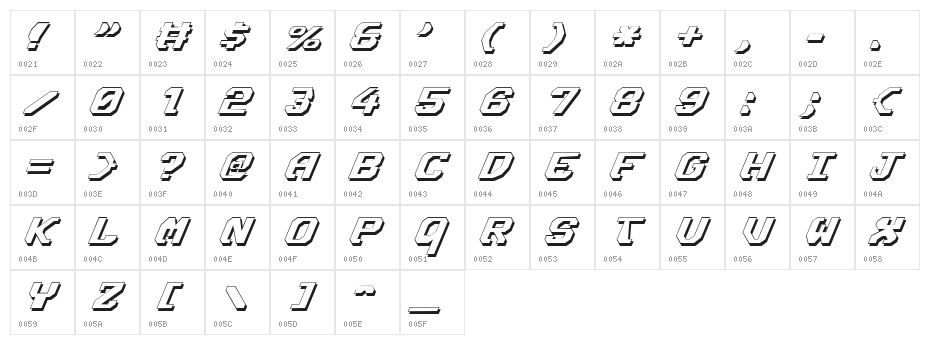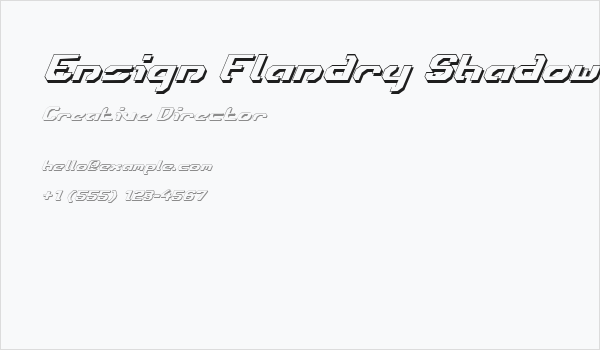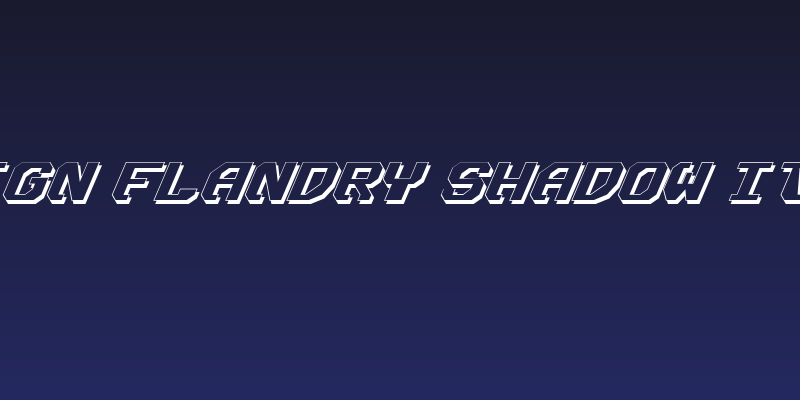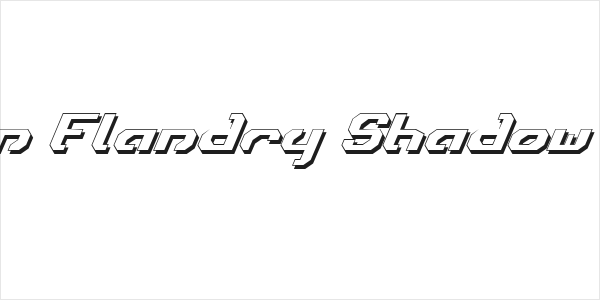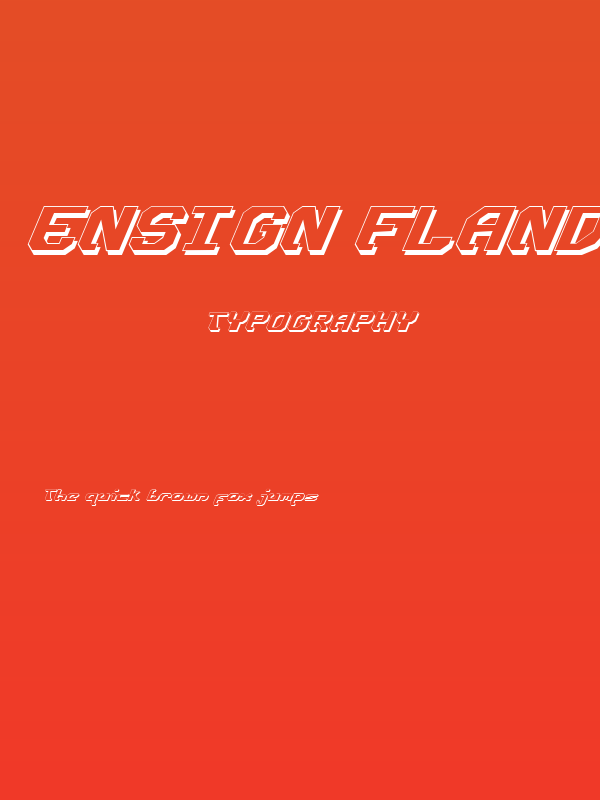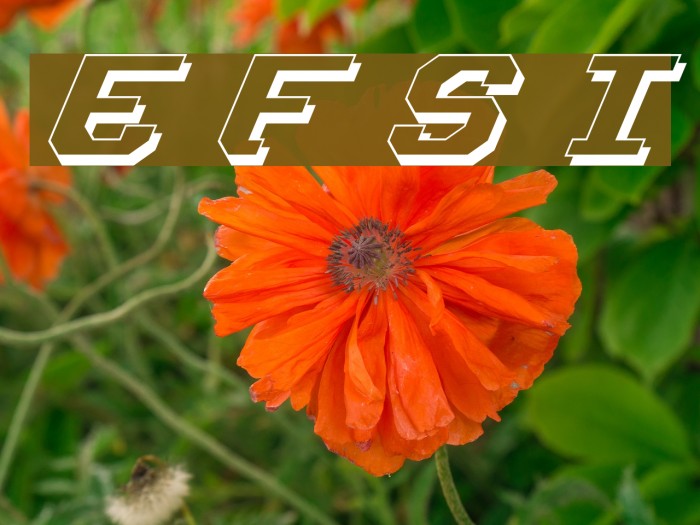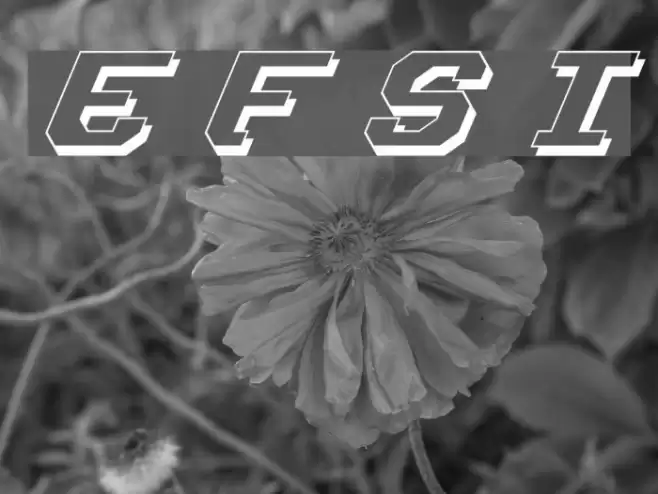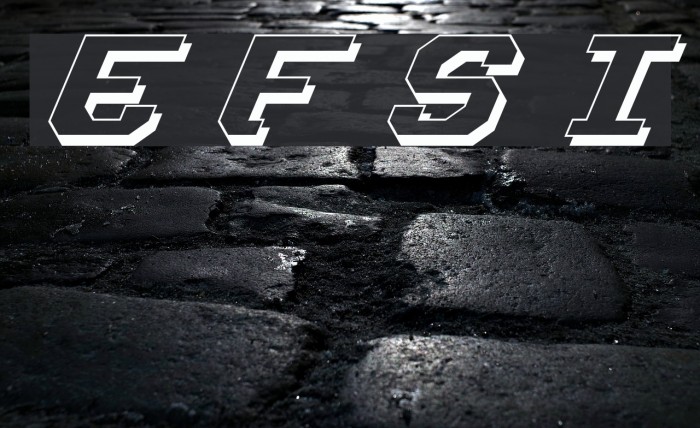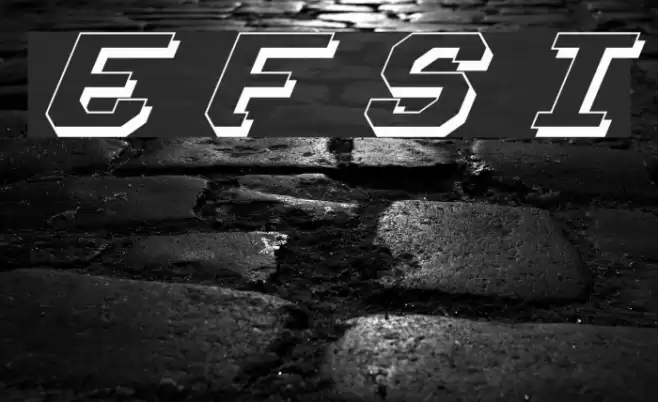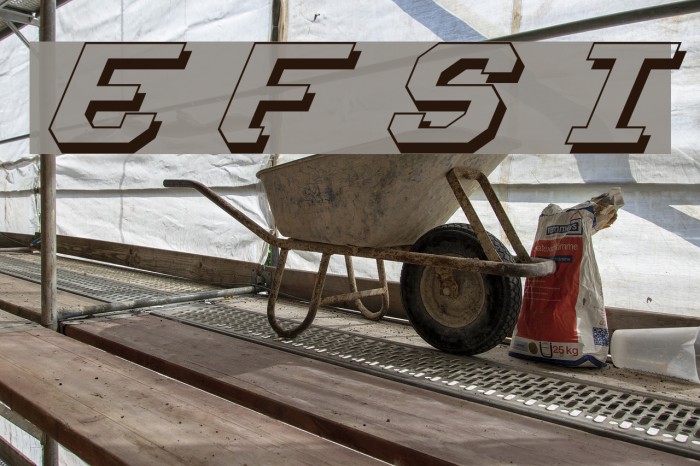
Ensign Flandry Shadow Italic Font
Ensign Flandry Shadow Italic Description
This font features a bold and dynamic design with a distinct shadow effect that gives it a three-dimensional appearance. The characters are italicized, adding a sense of movement and energy. The uppercase and lowercase letters maintain a consistent style, with sharp angles and clean lines that create a futuristic and modern look. The numbers and special characters are designed to match the overall aesthetic, ensuring a cohesive appearance across all text. The shadow effect enhances the visual impact, making it suitable for eye-catching designs.
| Proposed Projects | Ideal for posters, headlines, logos, and any design requiring a bold, modern statement. |